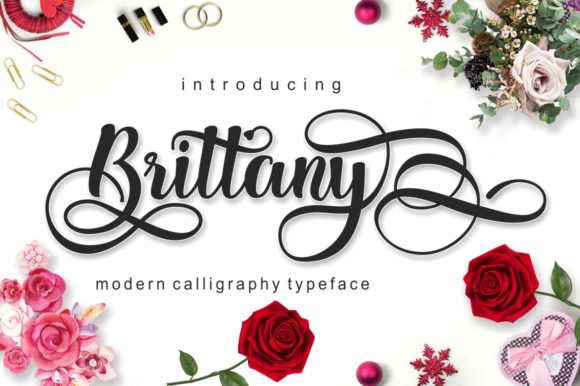
Brittany Font Download Premium Script Fonts: When it comes to elegance in typography, few fonts strike the perfect balance between grace and modern flair like the Brittany Font. With its stylish curves and handwritten finesse, Brittany is more than just a font—it’s a design statement. Whether you’re working on a wedding invitation, brand logo, or Instagram quote, Brittany has the ability to instantly elevate the mood of your project with its luxurious, flowing letterforms.
What Is the Brittany Font?
Brittany is a light, handwritten script font known for its sophisticated yet approachable style. Each letter flows with a natural rhythm, emulating the fluidity of real handwriting, but with a polished, high-end finish. It’s PUA encoded, meaning all its special characters, swashes, and alternate glyphs are easily accessible without any advanced design software.
Developed with a focus on elegance, Brittany is the perfect fit for projects that require a personal, stylish, and luxurious feel.
Key Features:
Light, elegant stroke weight
Natural handwritten flow
Beautiful ligatures and alternates
PUA encoded for easy access to stylistic elements
Ideal for romantic, upscale, or feminine design styles
Why Choose Brittany Font?
There are thousands of script fonts out there—but Brittany stands out because of its fine balance between refined beauty and usability. Here’s why so many designers love using Brittany:
💎 1. Luxury in Every Curve
From wedding stationery to high-end packaging, Brittany screams sophistication. Its swirls and gentle curves add just the right amount of flair without being overwhelming.
✍️ 2. Genuinely Handwritten Feel
Unlike stiff calligraphy fonts, Brittany maintains a casual elegance. It feels handwritten but polished—like the signature of someone with impeccable taste.
🖌️ 3. PUA Encoding = Creative Freedom
You don’t need Adobe Illustrator or expensive tools to unlock its glyphs and stylistic sets. With PUA encoding, you can access all swashes, ligatures, and special characters right from your character map or font viewer.
🌸 4. Perfect for Feminine & Romantic Themes
Need something soft, classy, and full of charm? Brittany fits beautifully into wedding invitations, beauty branding, blog headers, and lifestyle designs.
Unlocking Glyphs & Ligatures in Brittany Font
Since Brittany is PUA encoded, you can easily access its stunning stylistic alternates, swashes, and ligatures using:
These decorative characters help you add extra elegance to names, signatures, quotes, and titles.
Where Brittany Font Shines Best
Thanks to its versatility and charm, Brittany fits into a wide range of design categories. Here’s where you’ll see it shine:
💌 Wedding & Event Stationery
Invitations, save-the-dates, RSVP cards—Brittany adds romantic flair to any celebration.
🛍️ Branding for Luxury Products
Beauty products, perfumes, boutiques, and fashion brands often use script fonts like Brittany to express elegance.
📱 Instagram Quotes & Stories
Soft and stylish, it’s perfect for quotes, promotional banners, and highlight covers on social media.
🎀 Logo Design for Feminine Brands
Florists, bridal boutiques, fashion bloggers, and skincare brands can use Brittany for signature-style logos.
📝 Personal Signatures & Blogs
Want to add a hand-crafted signature at the end of your email, blog, or website? Brittany provides a natural, personal touch.
Final Thoughts: Add a Touch of Sophistication with Brittany
The Brittany Font is more than just a typeface—it’s an experience of elegance, charm, and personal style. Whether you’re designing for romance, luxury, or lifestyle, Brittany helps your work stand out with timeless beauty.